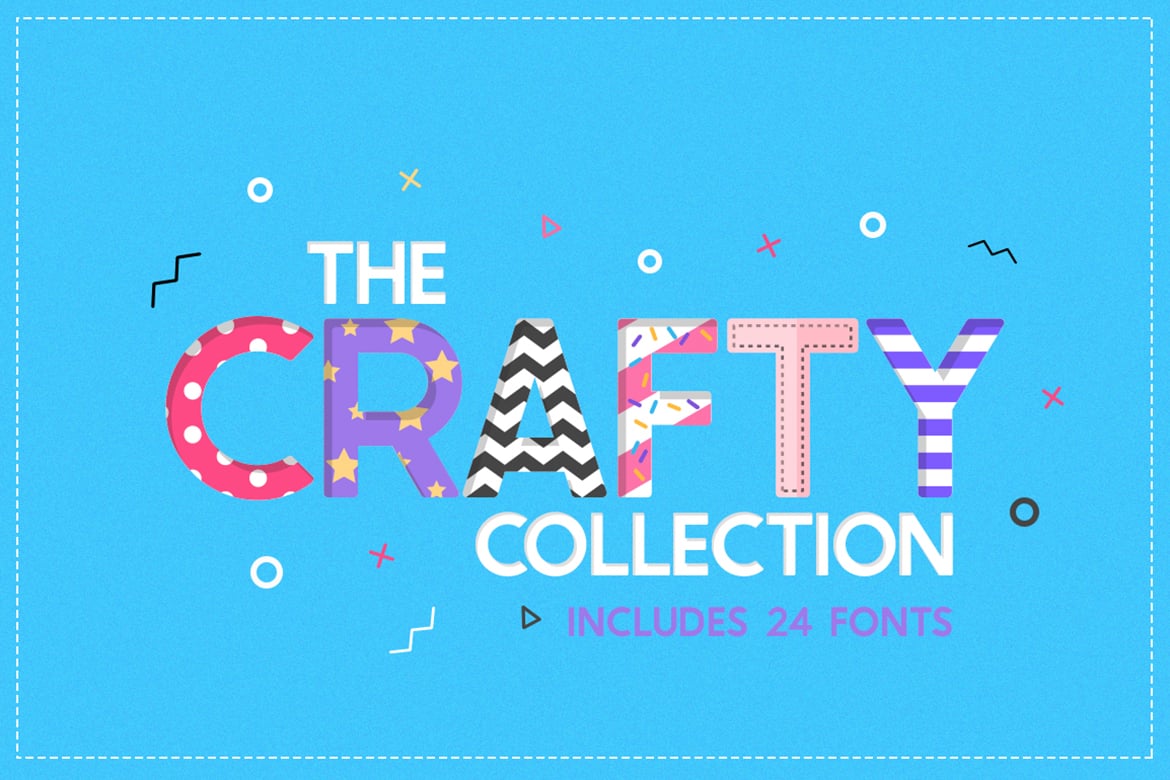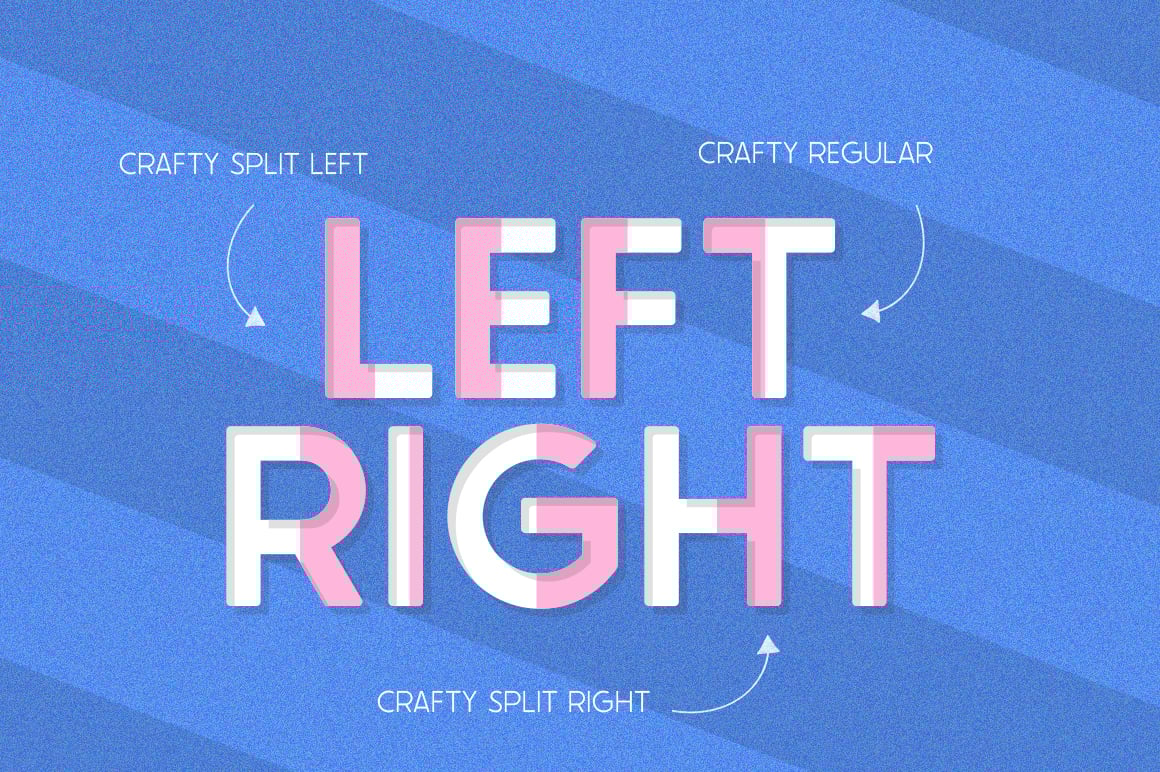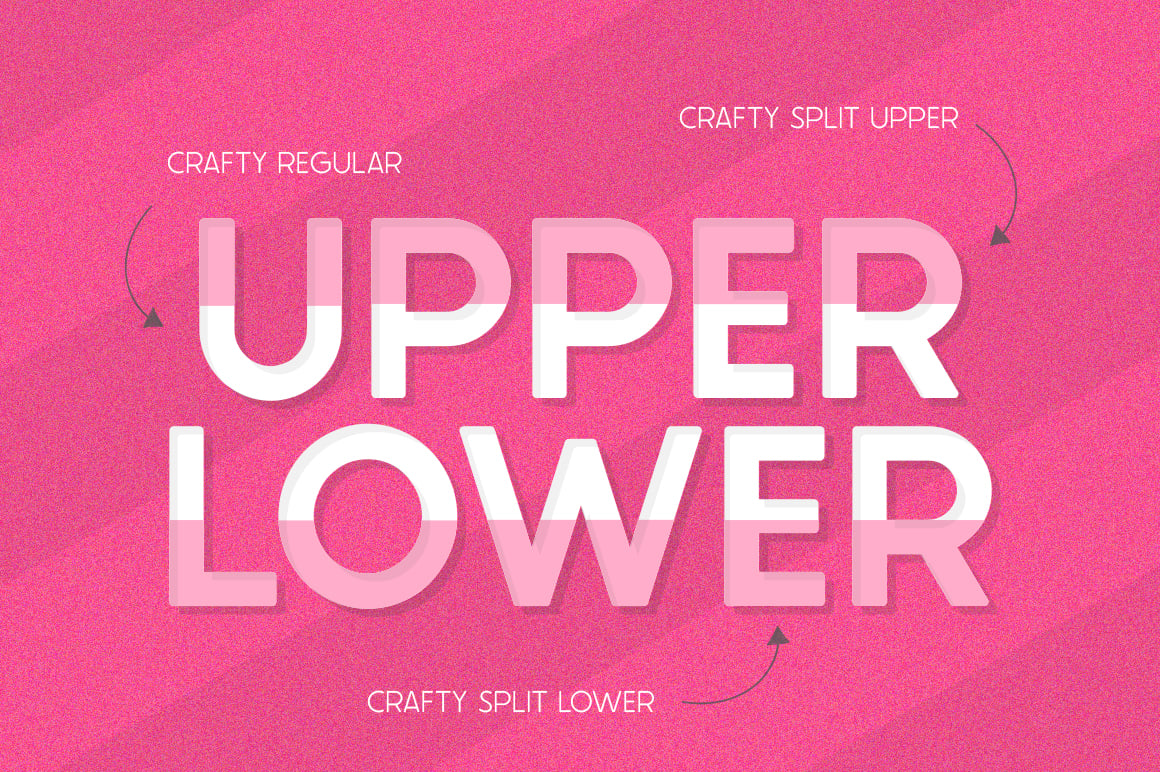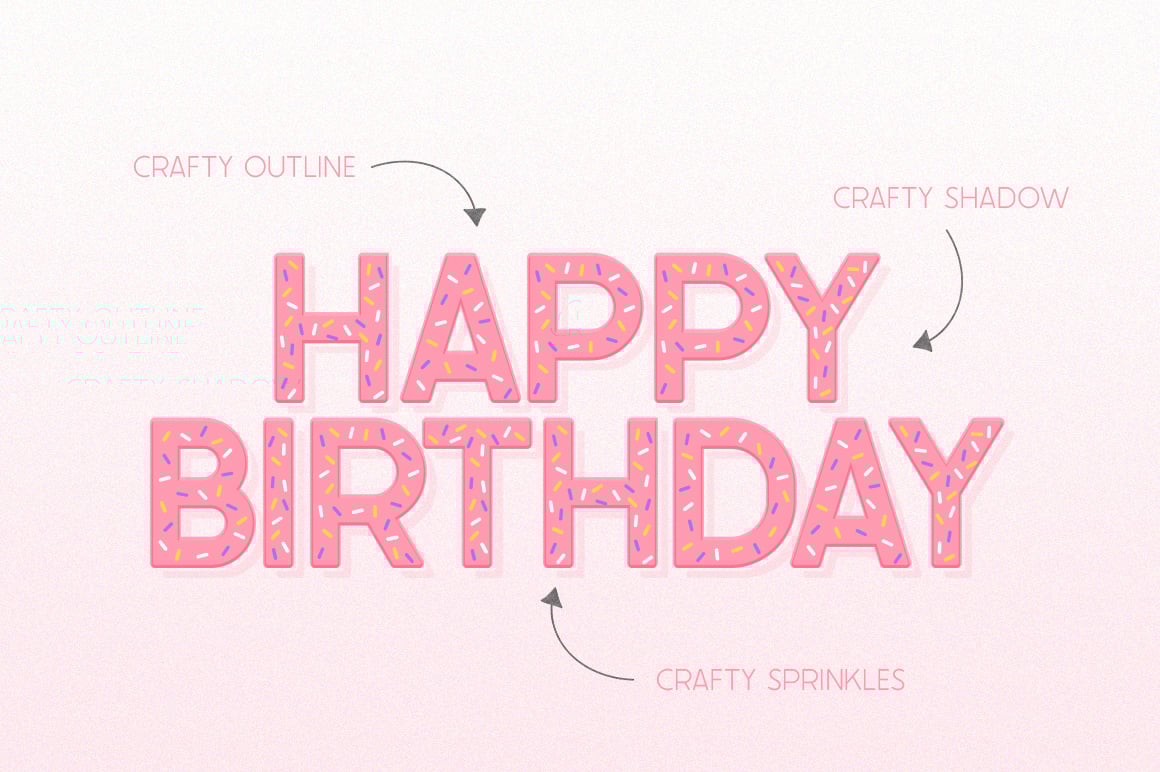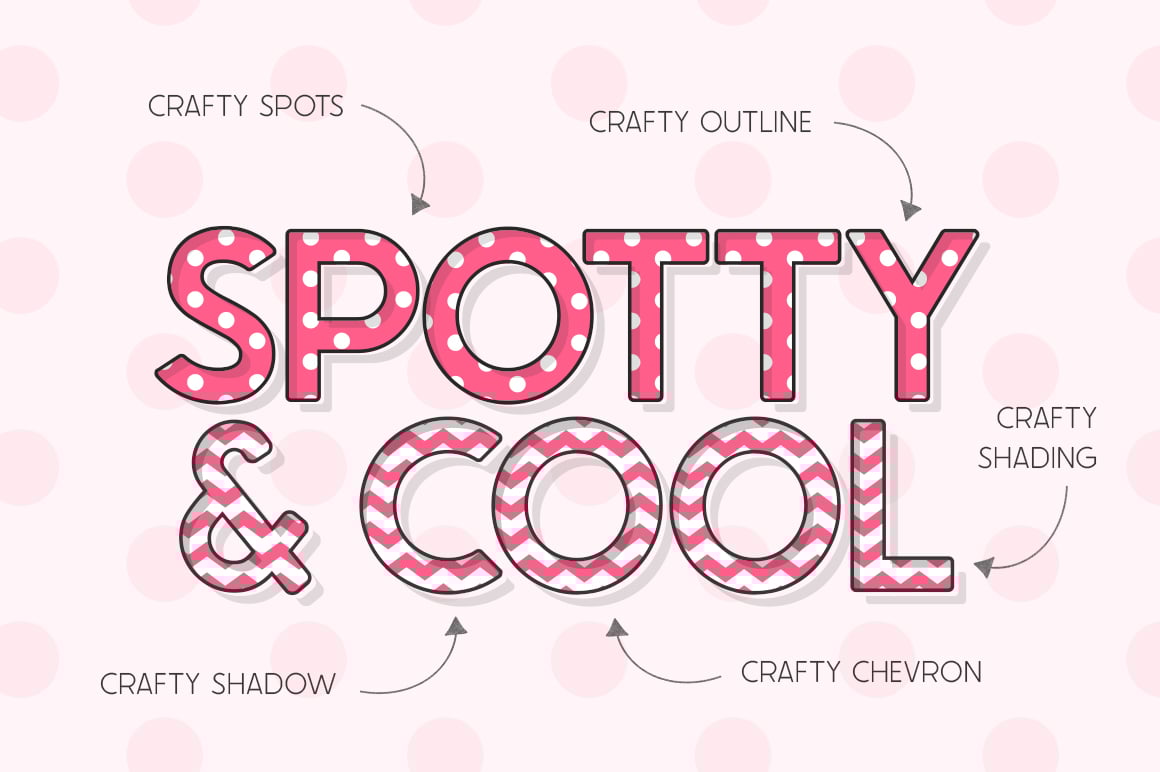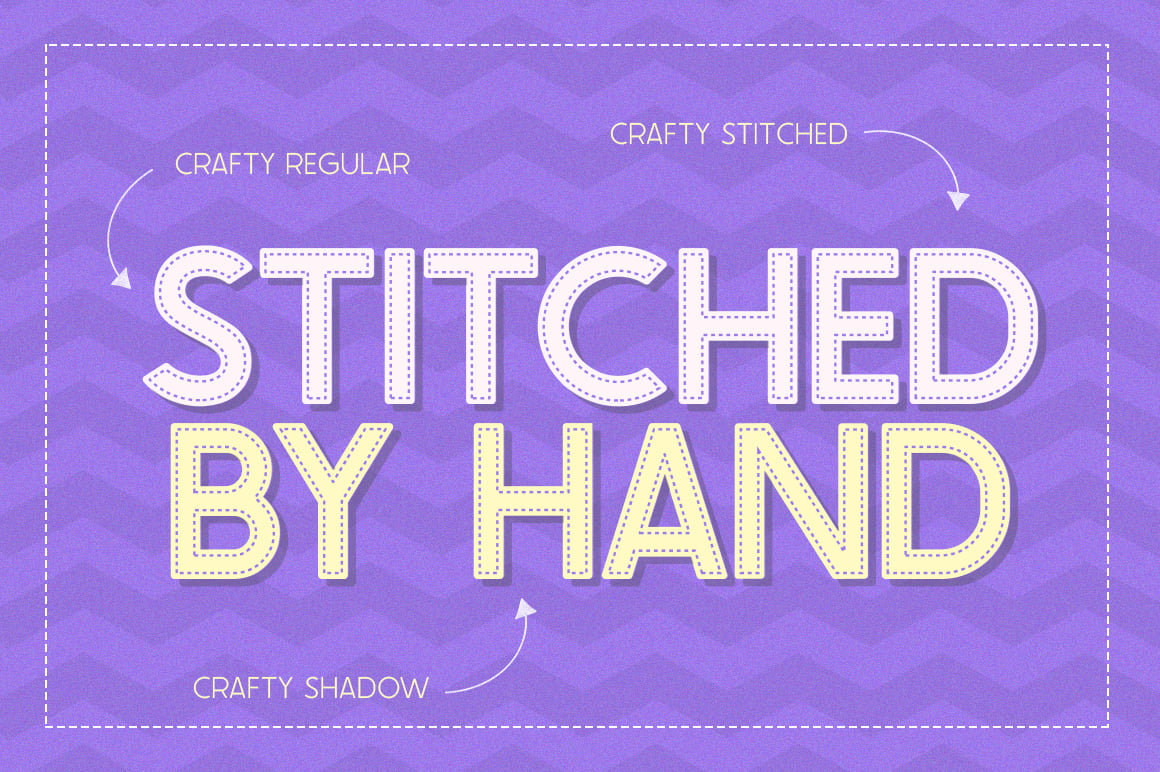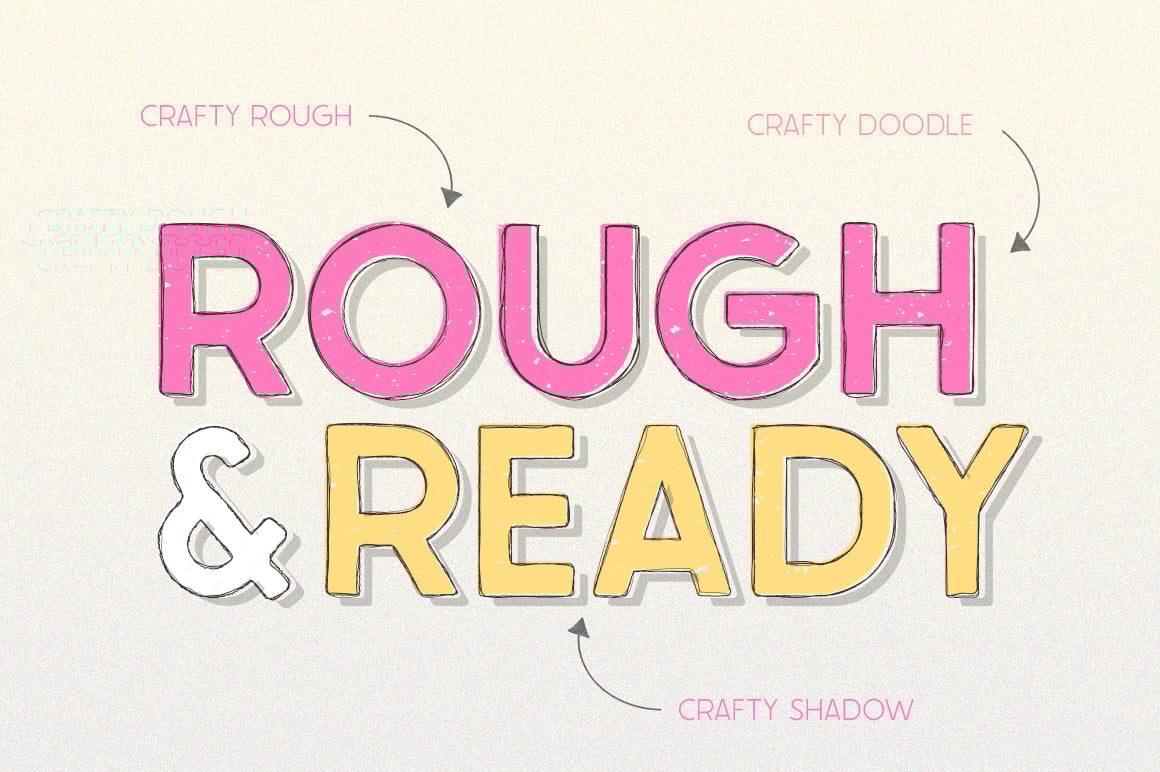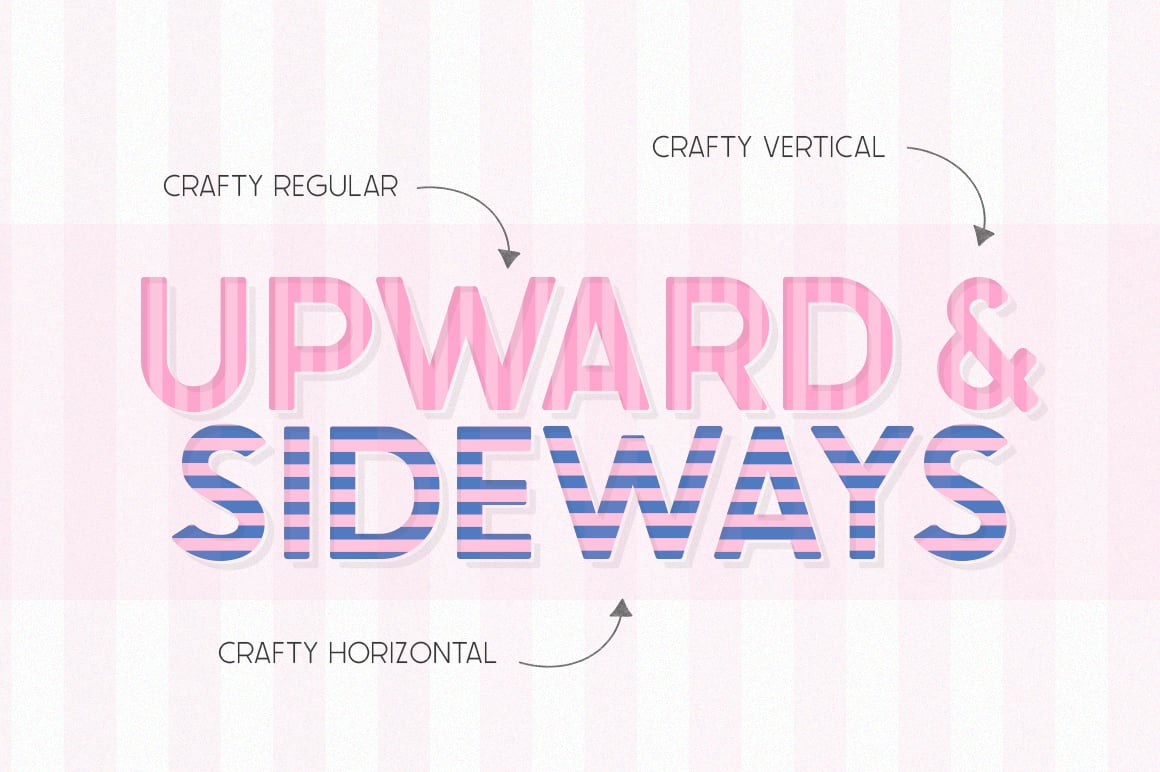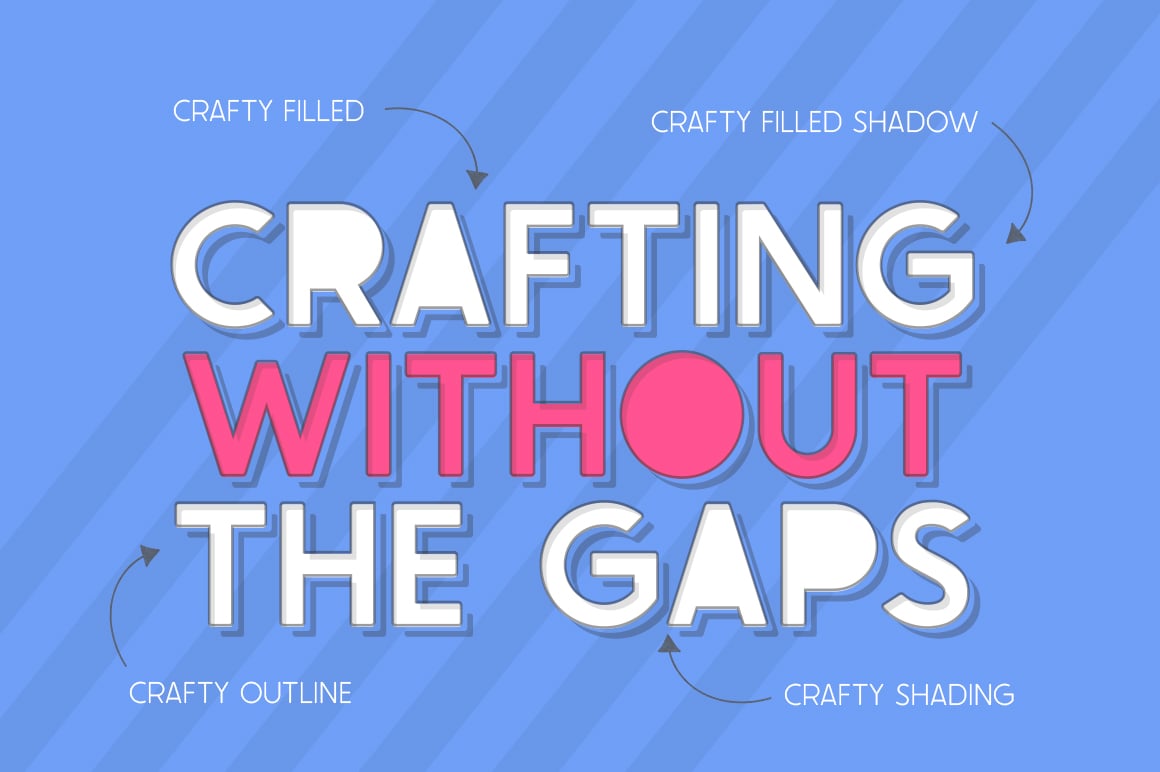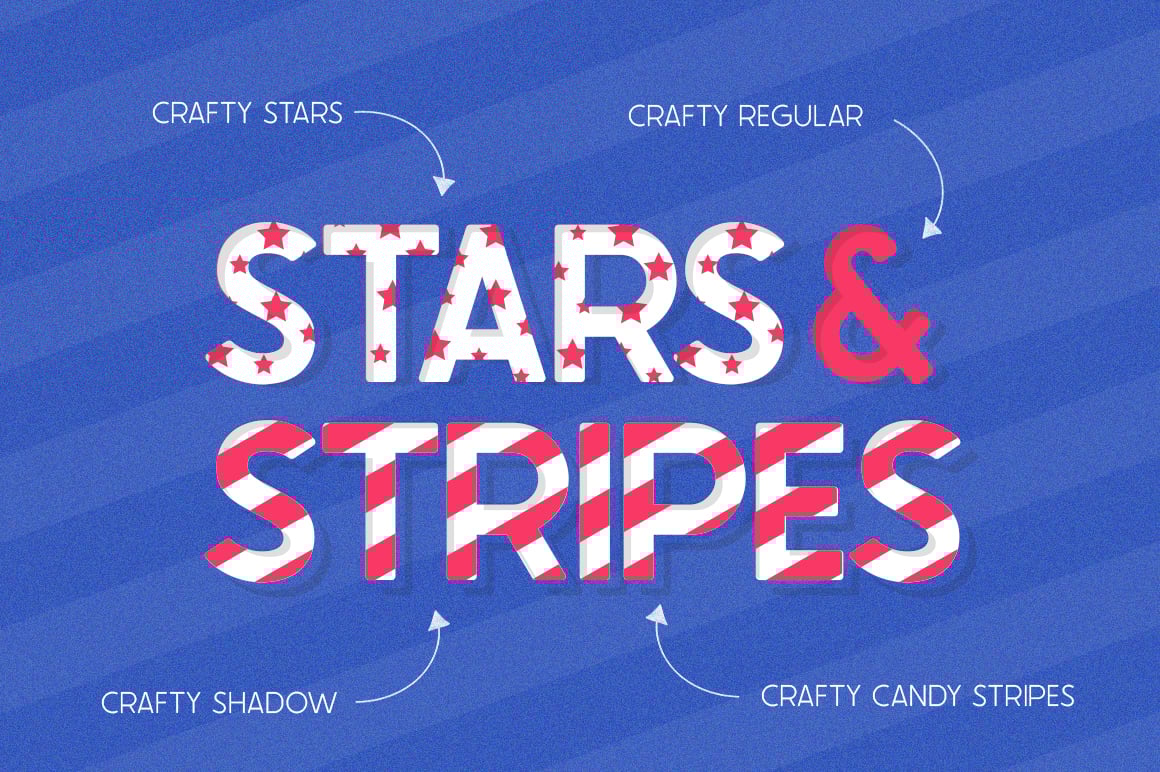
The Crafty Font Collection (24 Fonts)
Introducing The Crafty COLLECTION now! A huge collection of 24 fonts! Each one works perfectly in conjunction with the others so you can mix and match them until your hearts content! The possibilities really are endless and all styles are useful for so many different designs – have fun using it!